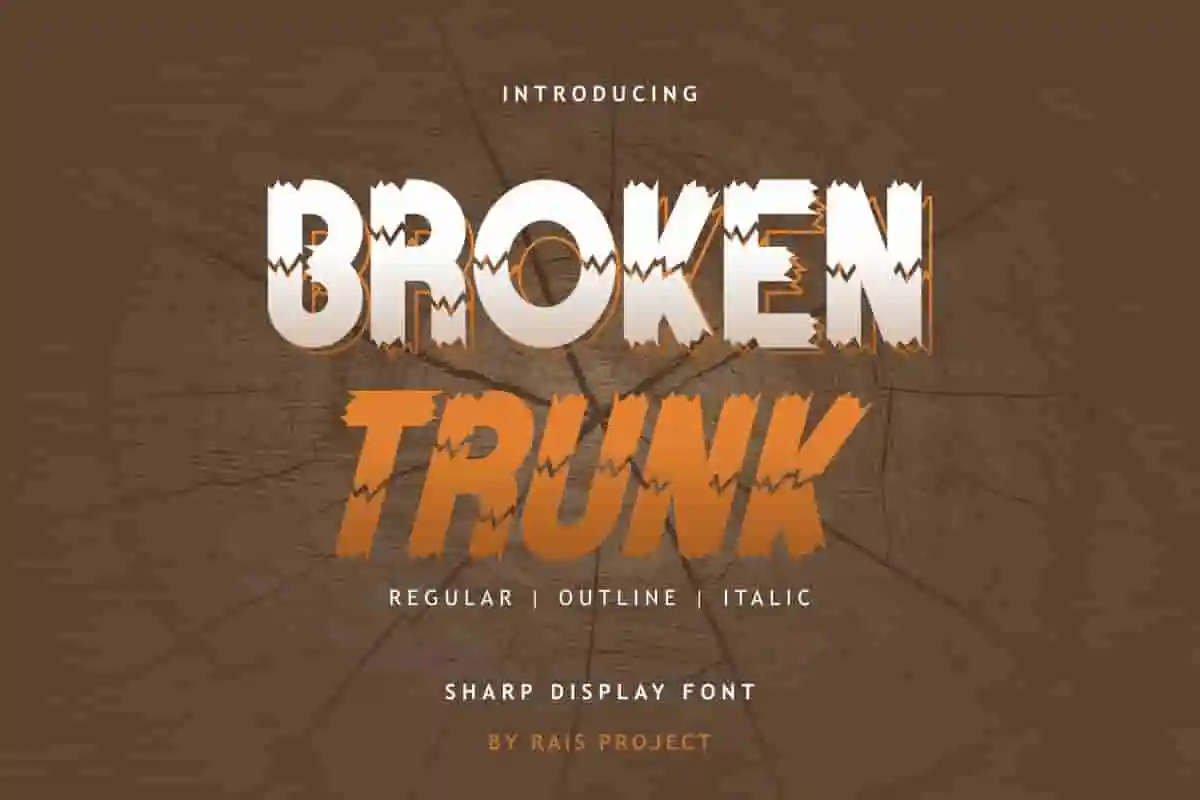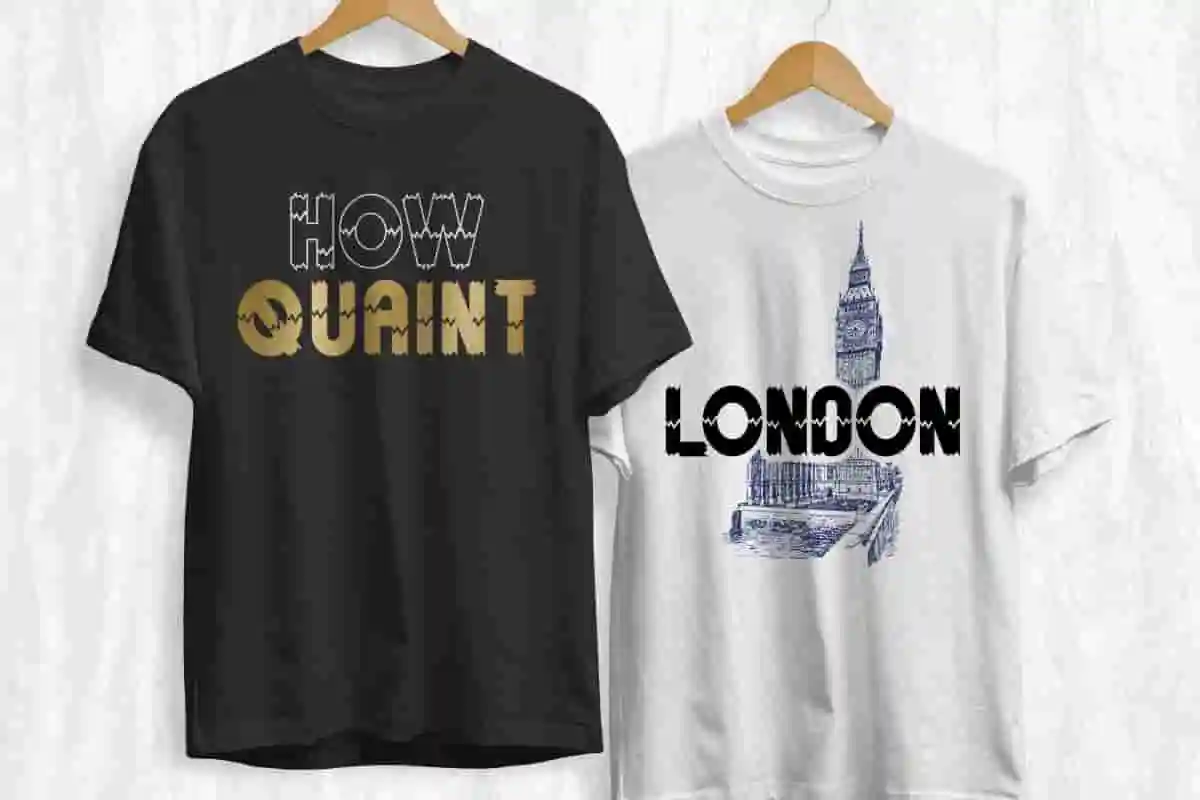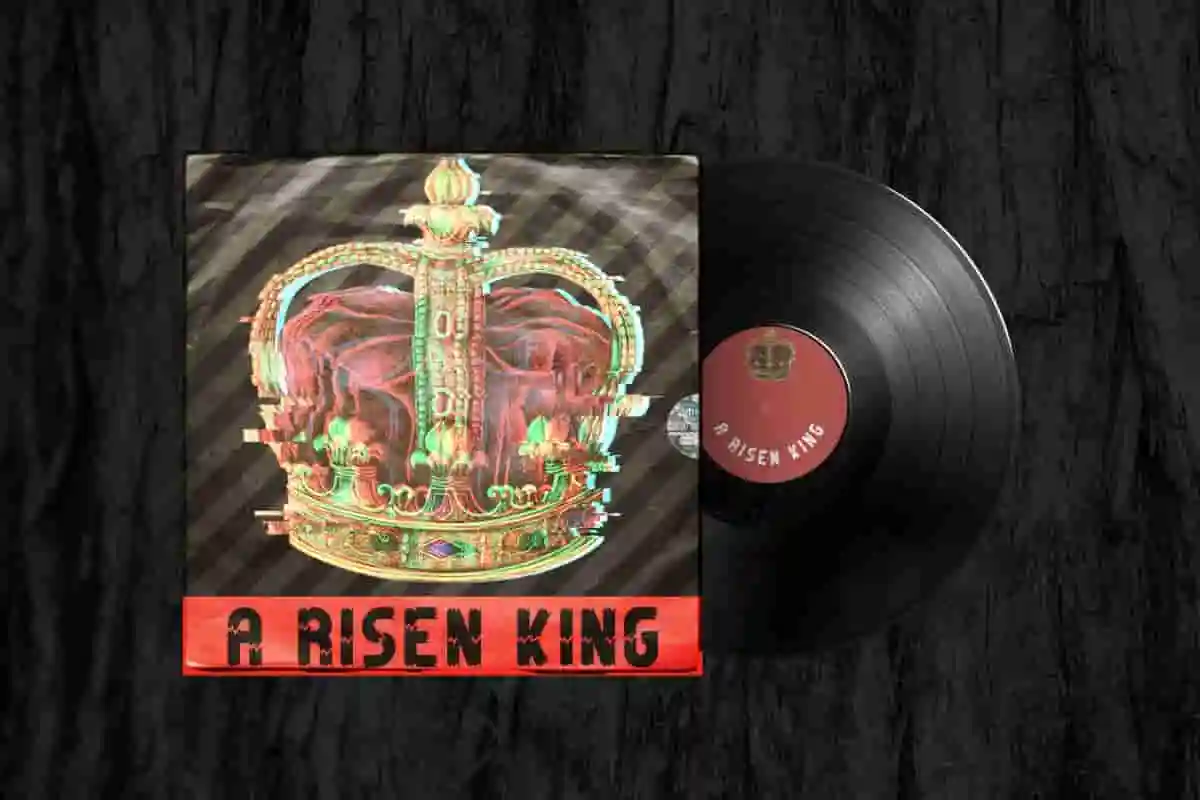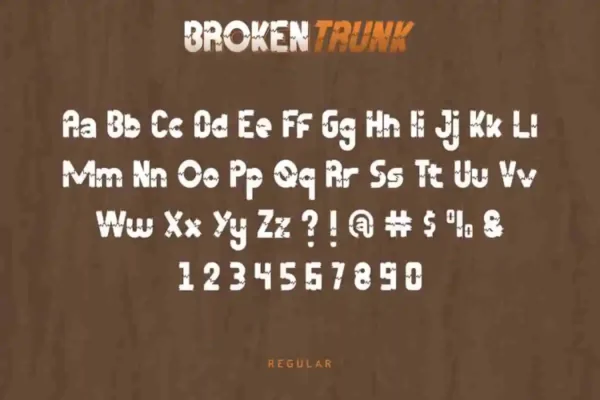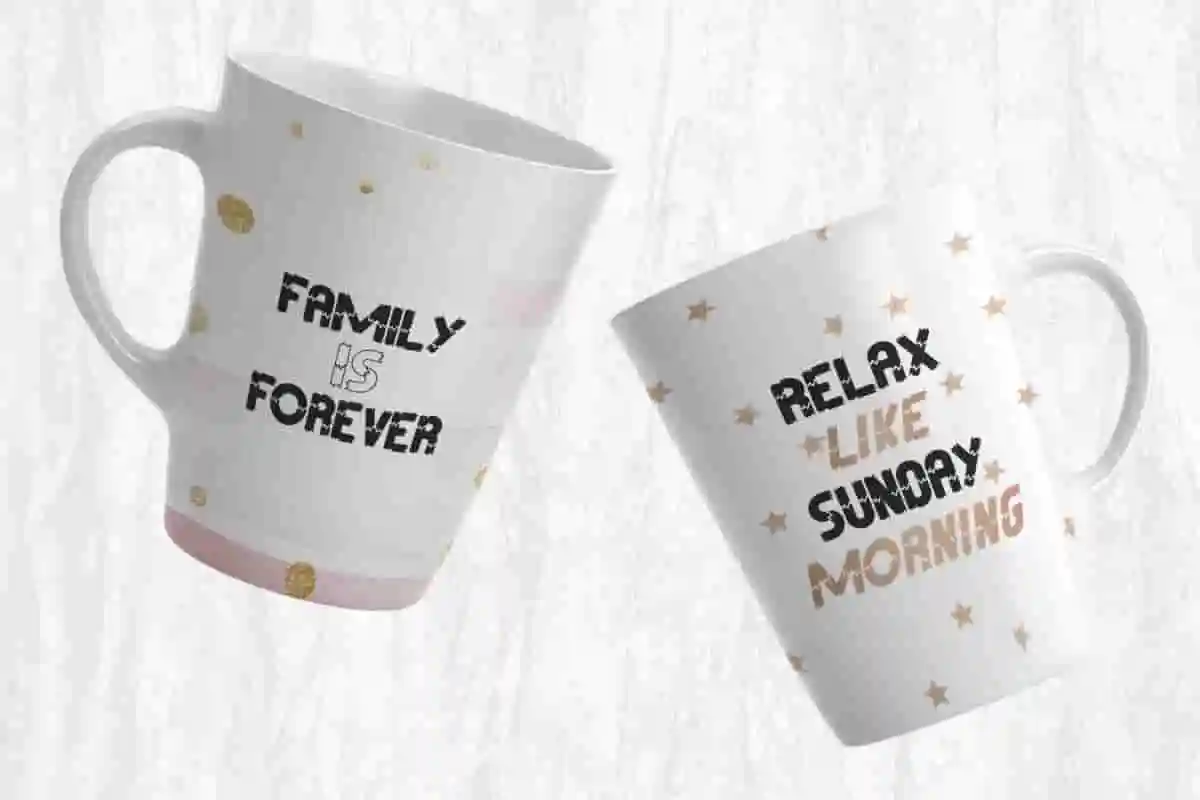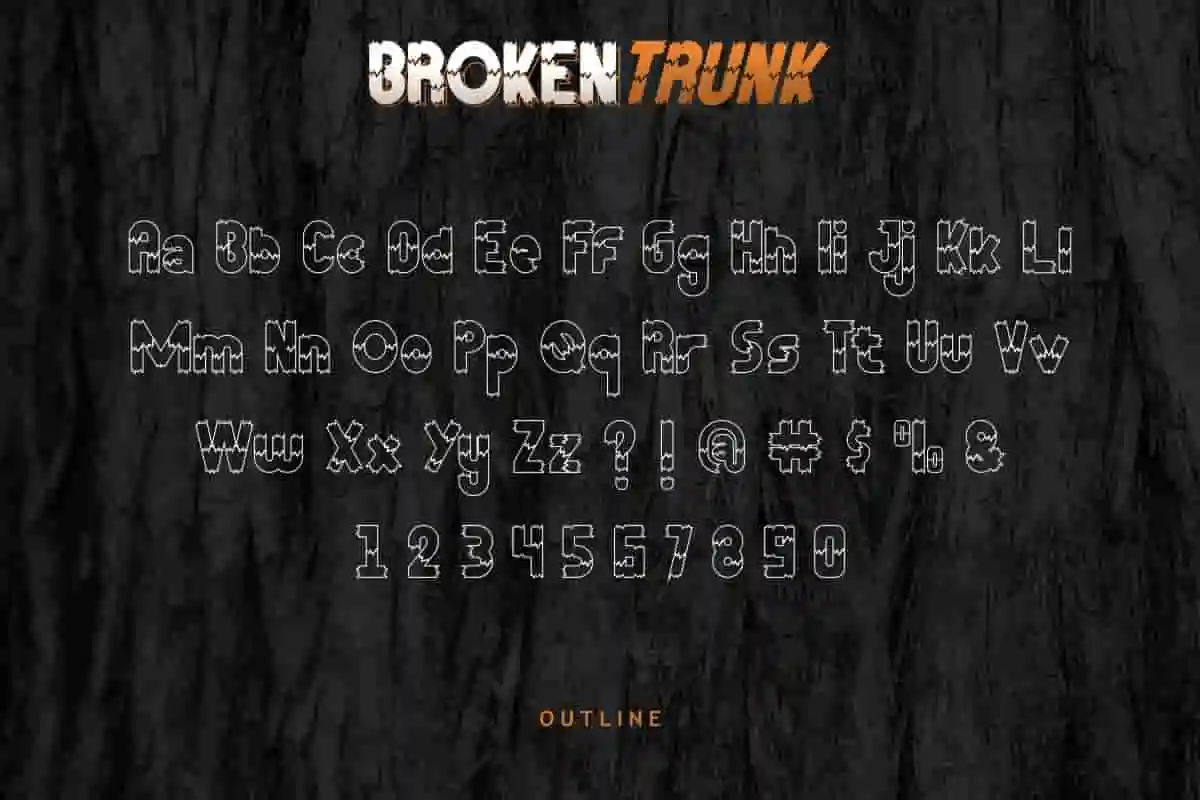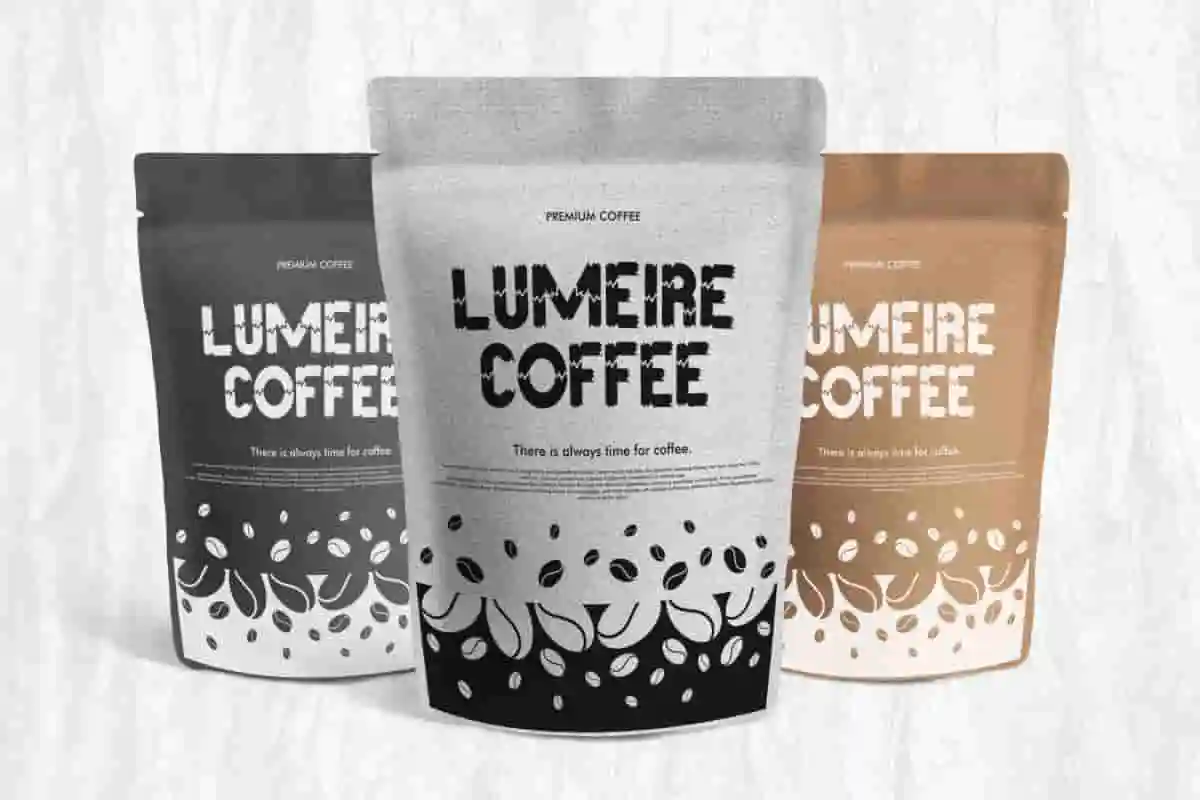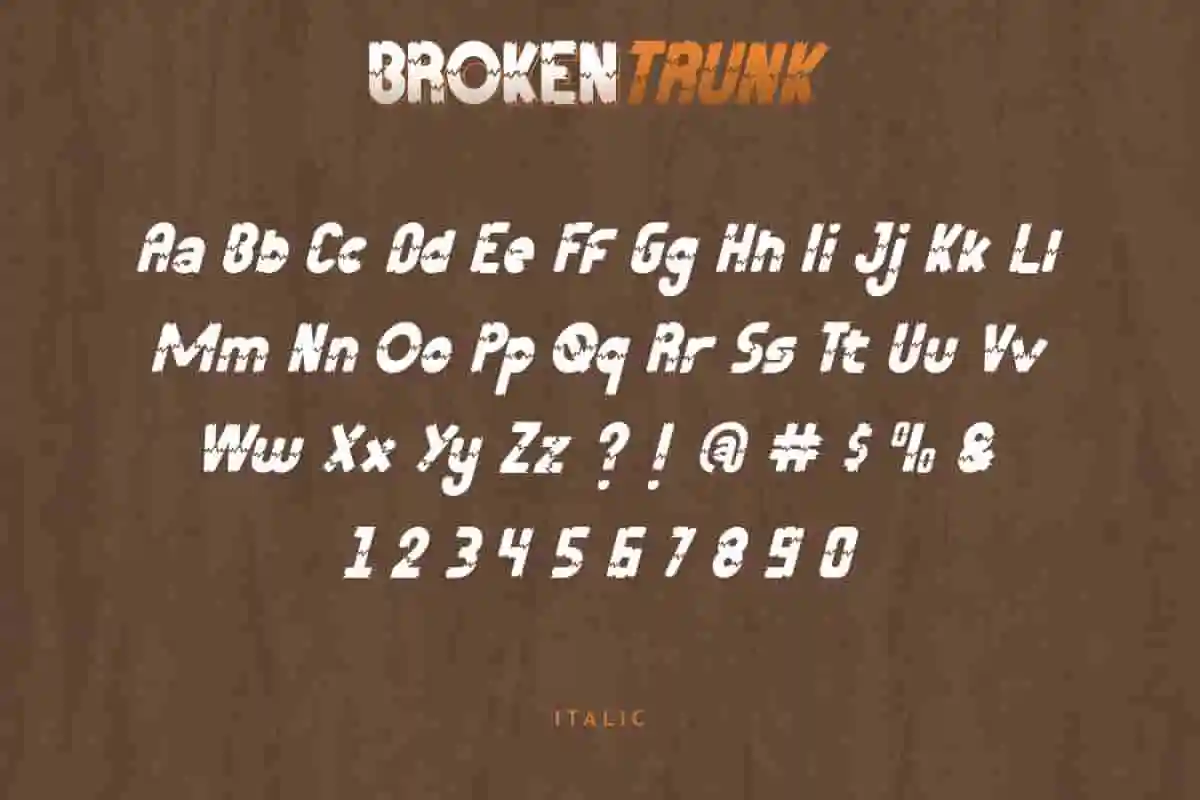
Broken Display Trunk Font
Broken Trunk Font is a display decorative sans serif font family, designed by Rais Project. The font has unique different styles that is inspired from broken tree trunk in the wood. It will be great for Game, Movie, Music, Sport etc
Broken Trunk Font is a special display Sans Serif unique font family, designed by RaisProject. It is our new font on the market. It has grunge, horror, dark and mysterious style. You can see the demo font below. You can also input any word you want so you can see what it will look like :
Broken Trunk Font remotely made by RaisProject team in Indonesia. The font handcrafted for any your special projects including : headlines, promotion, events, branding, advertising, magazine, signage, invitation, stationery, social media posts, label, or and any projects that need unique strong style. The industries for this font Movie, Automotive, Apps, horror, events, Games, Magazine, Music, Sports etc Broken Display Trunk Font includes full set of awesome uppercase and lowercase letters and numerals characters. In total, Broken Trunk has three different styles : Regular, Italic and Outline. You can mix it more than one style like we did on the previews On the package You will get: